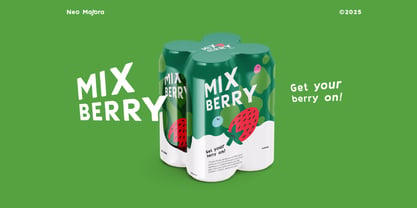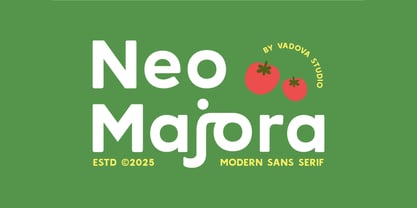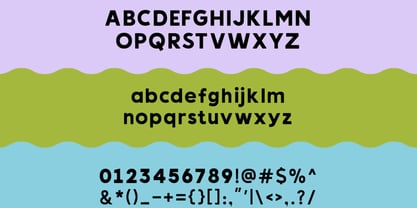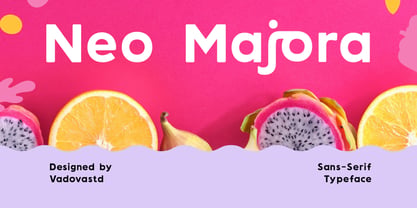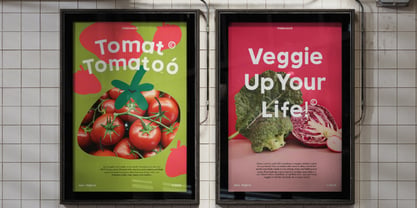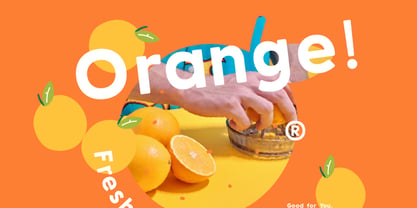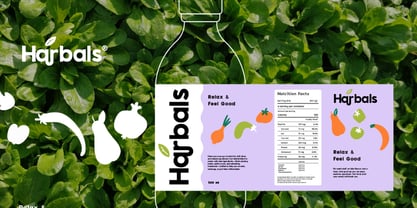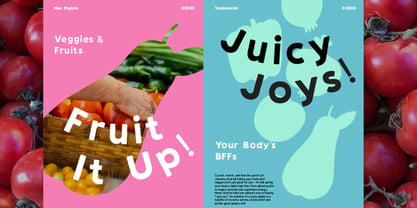
Neo Majora
Neo Majora is a modern sans serif font with a playful, bold, and clean personality. Designed for fresh and contemporary branding, this typeface features friendly letterforms, balanced proportions, and excellent readability across both large and small sizes. Neo Majora is ideal for designers, brand owners, and content creators who need a modern font with a friendly and energetic tone. It is especially well suited for food and beverage brands, lifestyle products, startups, promotional campaigns, UI headers, and social media visuals that aim to feel fresh, approachable, and engaging.